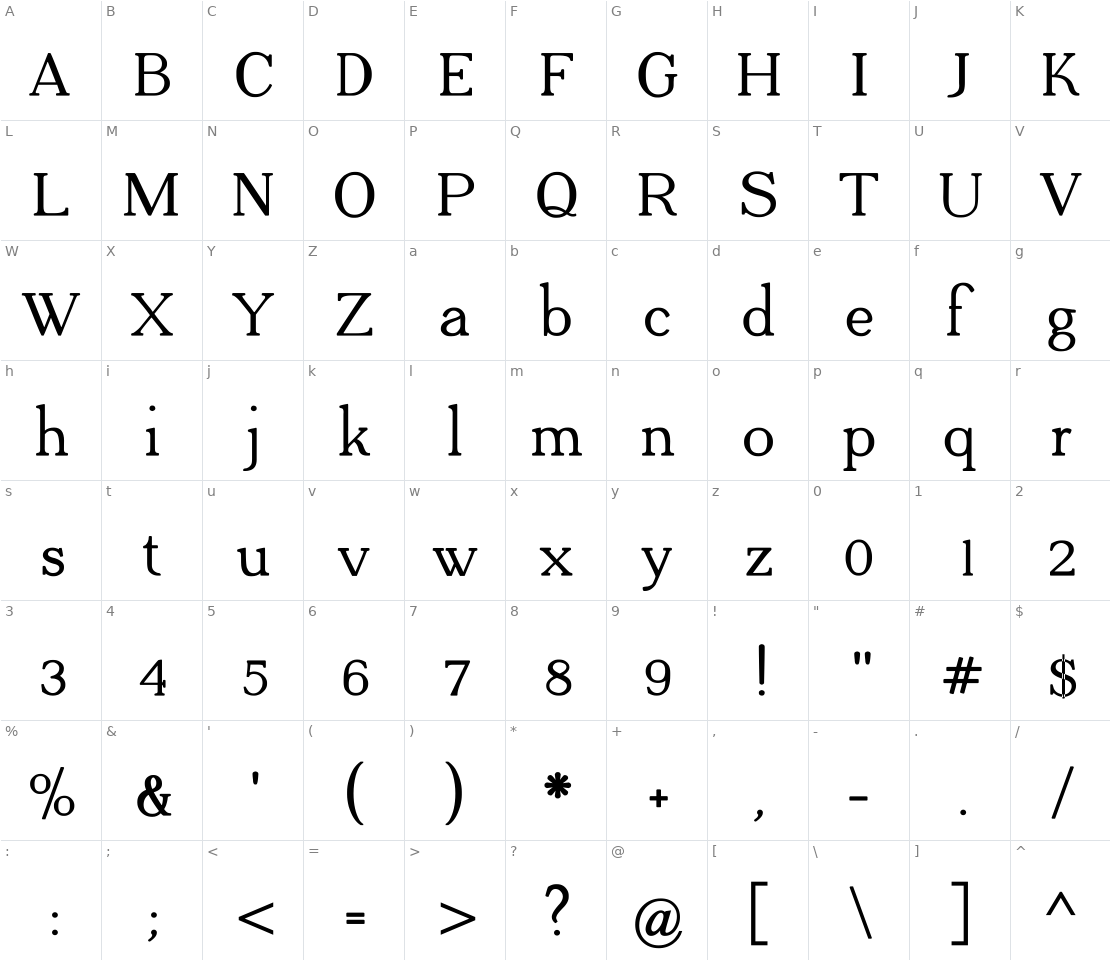
Adega Serif
Adega Serif is a light, refined transitional serif from Adega Design with the kind of quiet elegance that works equally well in body text and headlines. Its letterforms balance classical structure with crisp, readable proportions, giving it a natural home in editorial layouts, book design, and understated branding. There's nothing flashy here, just solid, well-drawn type that stays composed at any size.